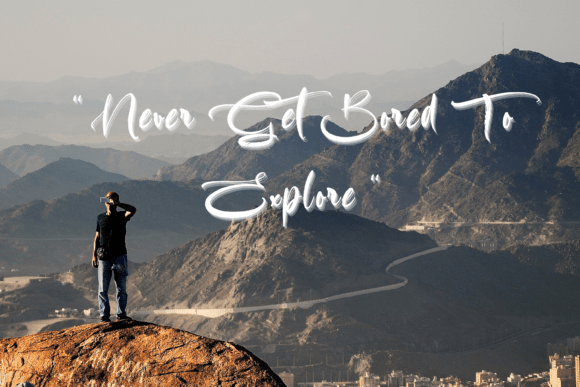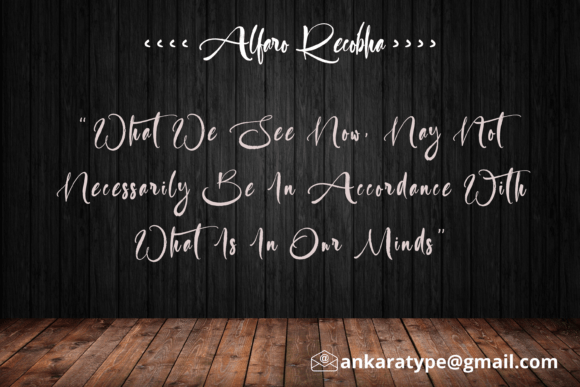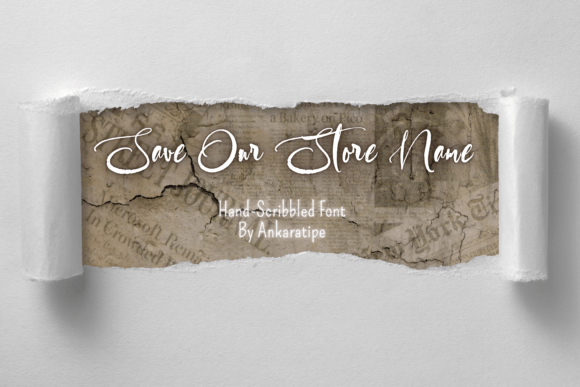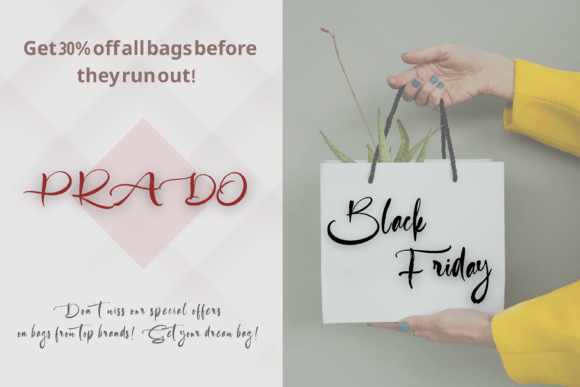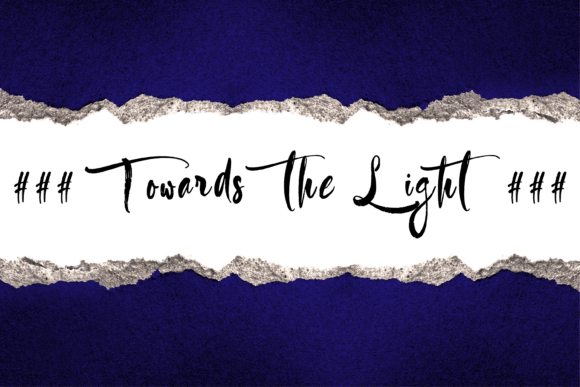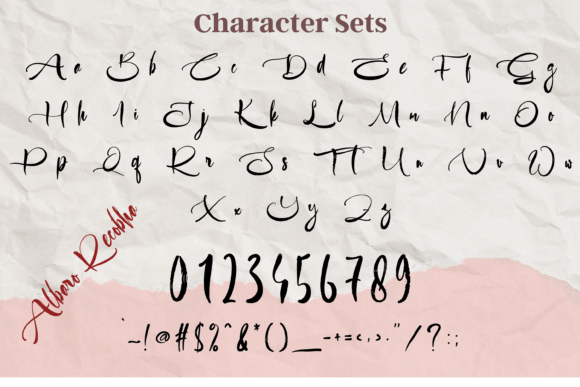
Introduction to Alfaro Recobha Font
Alfaro Recobha is a modern script font with bold strokes, clean curves, and confident edges.
It covers all the basic characters (letters, numbers, and punctuation) and is easy to read Inspired by the natural flow of handwritten calligraphy, this font combines expressive movement with stylish clarity.